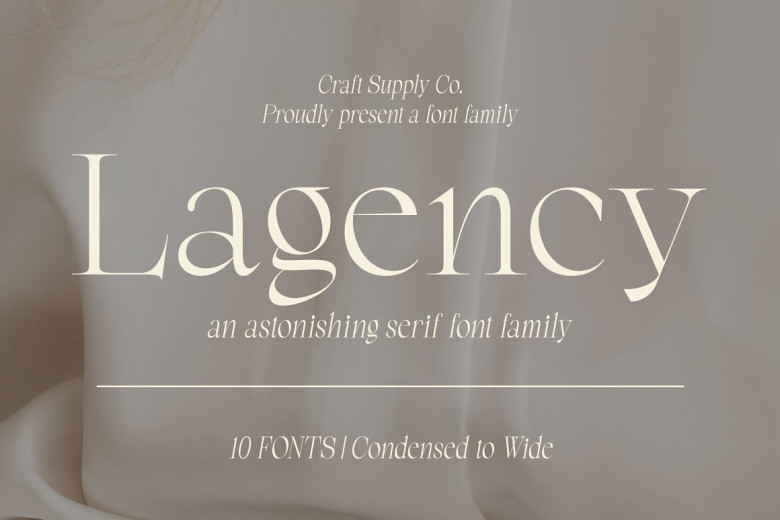
Lagency Font
Lagency includes 10 styles ranging from condensed to wide. Lagency’s versatile style options make it perfect for print, logo and web design – its graphic designers understand its importance of adaptability!
Lagency stands out with its clean lines and striking font, making it the ideal choice for both print and web projects. From legible fonts on large screens to something that adds personality to graphics and logos, Lagency won’t disappoint.
Lagency Serif Font